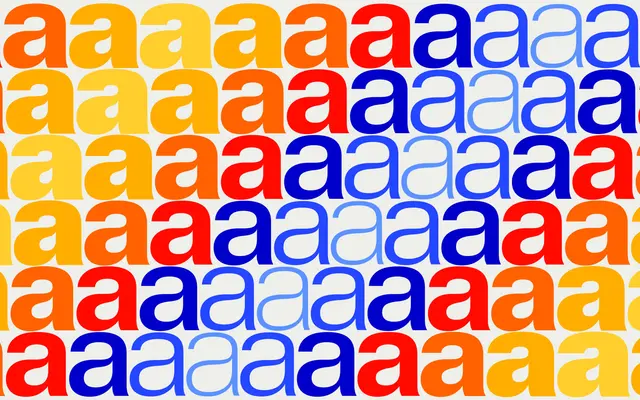
A 21-style grotesque from Hot Type spanning seven weights in both standard and condensed widths, suited to editorial and branding work across a wide range of sizes.
Twenty-one styles cover seven weights from Extra Light to Black, each available in standard and condensed widths, giving Exat considerable flexibility from small text sizes to large display settings. The condensed cuts are particularly pronounced, with the heaviest weights holding up well at headline scale. No italics are present, keeping the family focused on upright use across editorial, campaign and identity contexts.
Exat presents as a contemporary grotesque sans-serif with a strong condensed axis and a wide weight range, suggesting a workhorse display and text grotesque lineage.